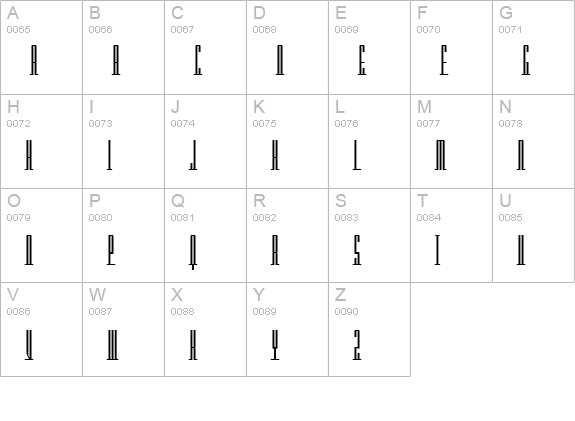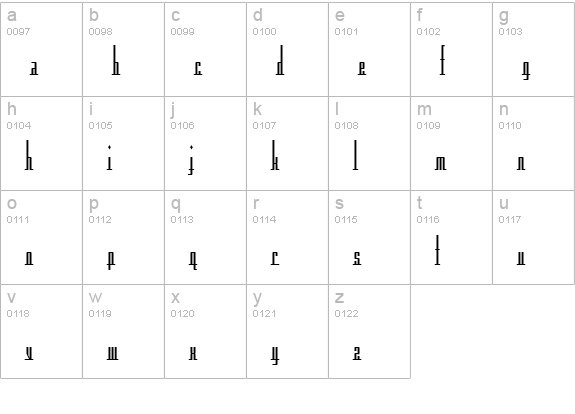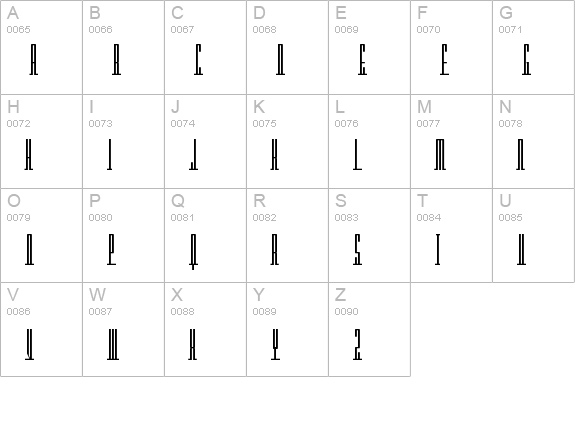
Americana Dreams CondUpright Font Details
Americana Dreams CondUpright is a classic and timeless font that exudes a sense of nostalgia and Americana charm. With its clean lines and elegant curves, this font is perfect for a wide range of design projects, from vintage-inspired posters to modern branding. Its condensed upright design adds a touch of sophistication and style to any text. The best part? Americana Dreams CondUpright is completely free to download at FontsMarket.com. With just a few clicks, you can add this versatile font to your collection and start using it in your designs right away. Don't miss out on this opportunity to enhance your projects with the beauty and versatility of Americana Dreams CondUpright font.